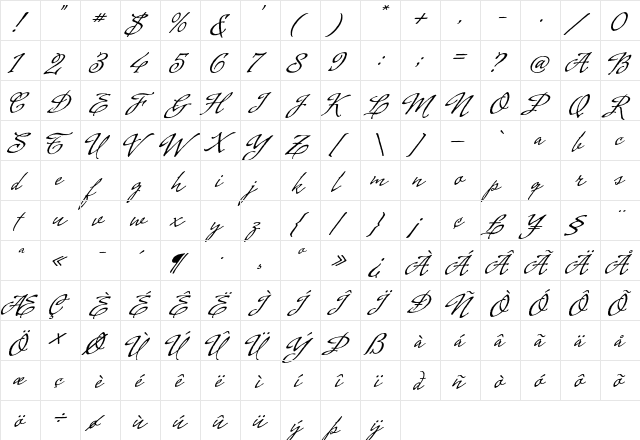
Cenizas Regular
| Foundry | Alejandro Paul & Angel Koziupa |
| Designer | Angel Koziupa |
Design Context for Cenizas Typeface
Cenizas is a composed and adaptable typeface that performs quietly and consistently across a wide range of design contexts.